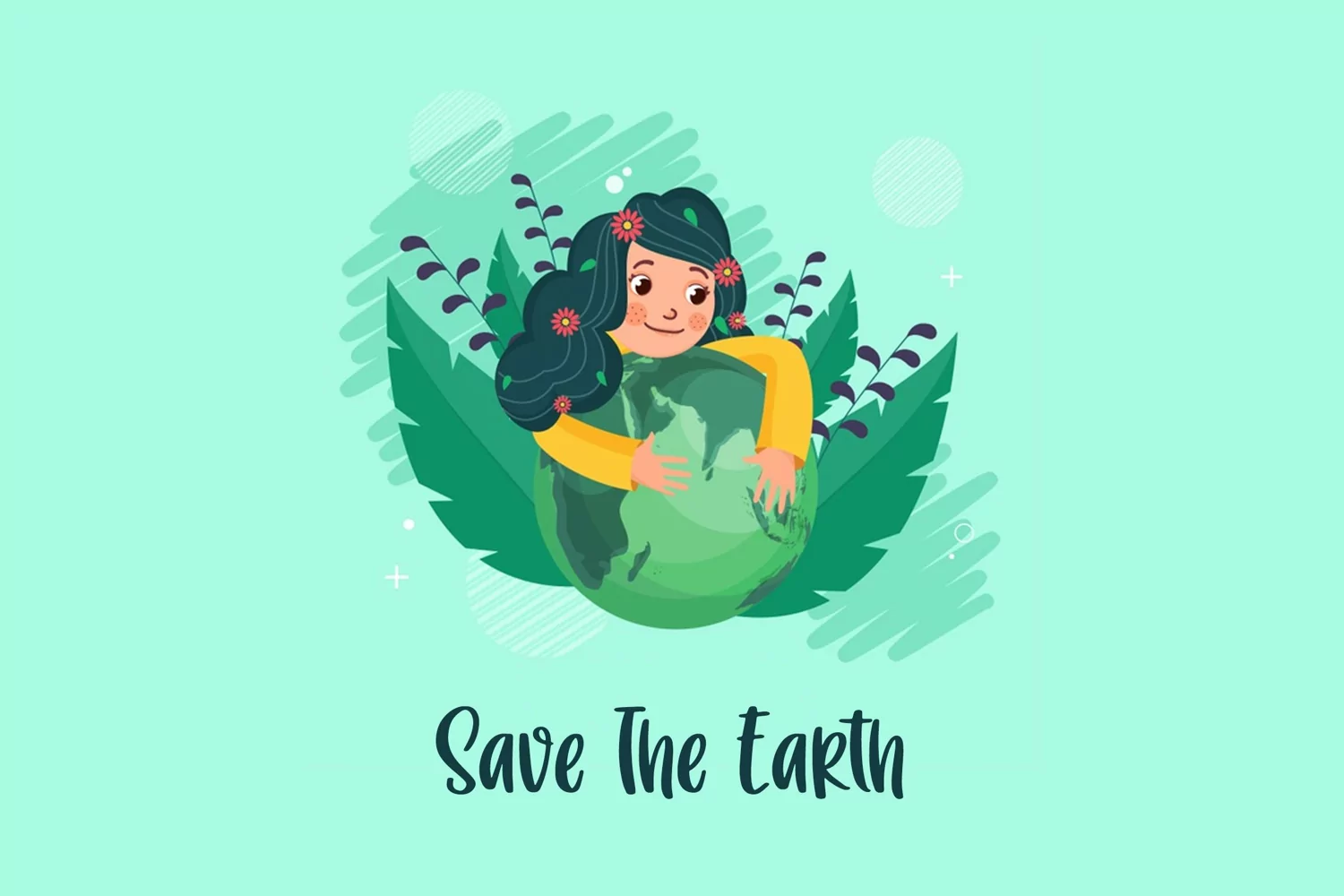
Forest Song is a cool, refreshing and neat looking display font. No matter the topic, this font will be an incredible asset to your fonts’ library, as it has the potential to elevate any creation.
Forest Song